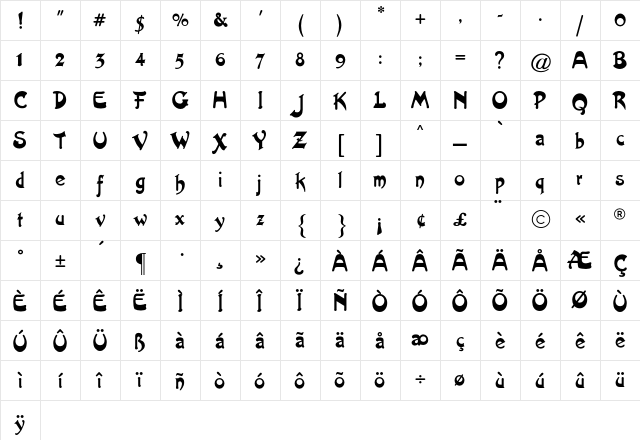
Artistik CG Regular
Foundry: Miles Inc
Design Context for Artistik CG
Artistik CG is a composed and adaptable typeface that performs quietly and consistently across a wide range of design contexts.